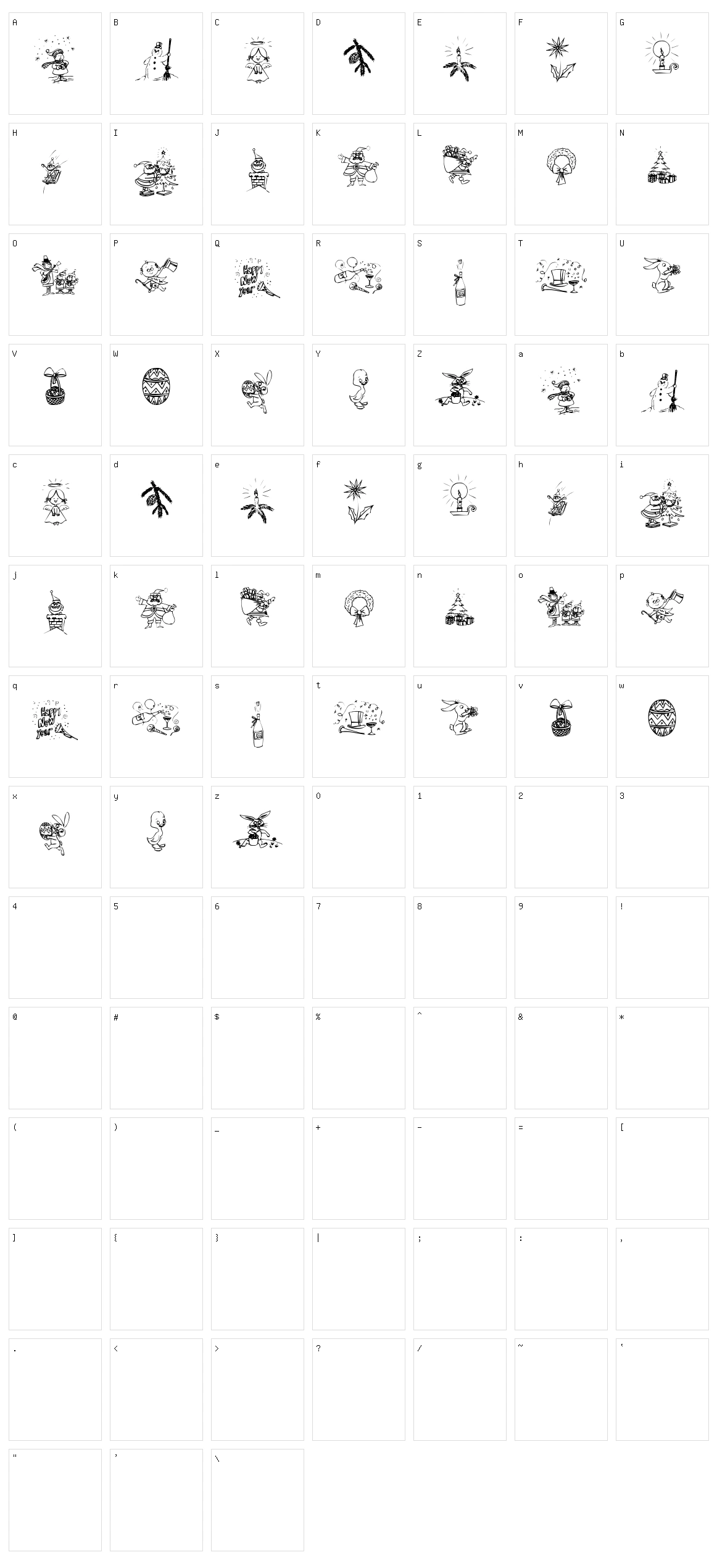
The free font Typographers Holidayfont is carefully designed by Dieter Steffmann, showcasing a thoughtful balance of creativity and usability and falls under the Christmas font style. When you download the ZIP file, it contains only 112.66 KB of font files, making it lightweight and quick to download. Please review the license details below to understand permitted usage and distribution rights. If license information is not available, we recommend using this font for personal projects only or contacting the author directly for commercial usage permissions.